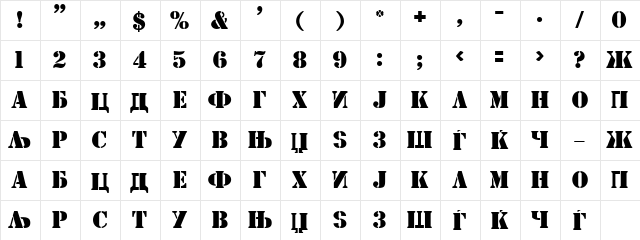
X_Stamp Heavy
Design Context for X_Stamp Typeface
X_Stamp borrows the utilitarian aesthetic of stencil lettering, with its characteristic cutaways and no-frills construction lending an industrial edge.
Ideal for industrial branding, streetwear, military-adjacent aesthetics, and urban signage projects.
Pro Tip: Pair X_Stamp with raw, utilitarian design elements — exposed concrete textures, flat colour, and minimal ornamentation suit it well.